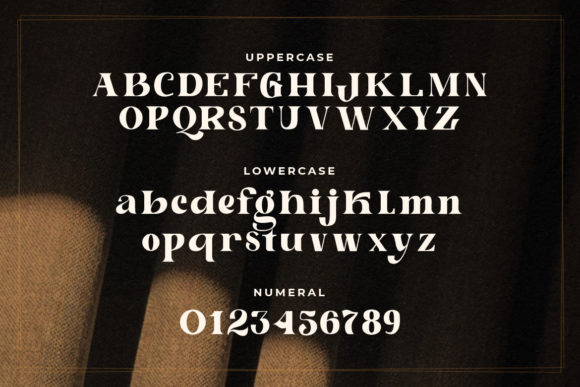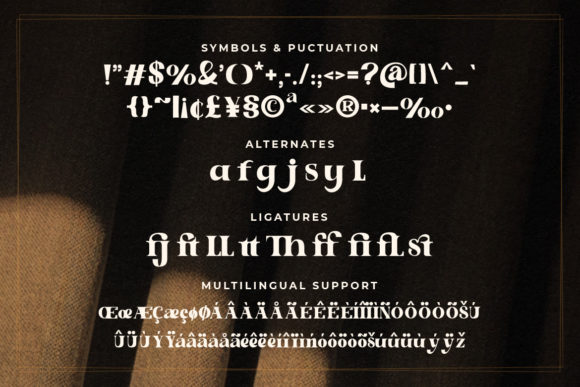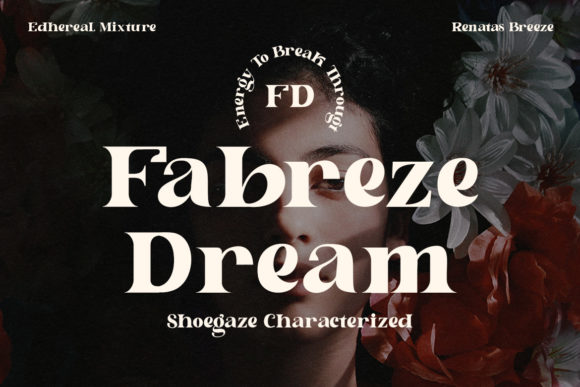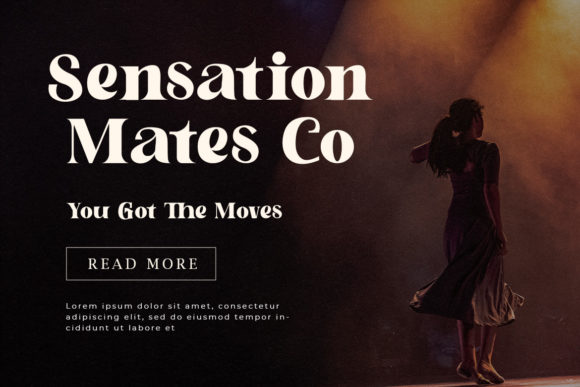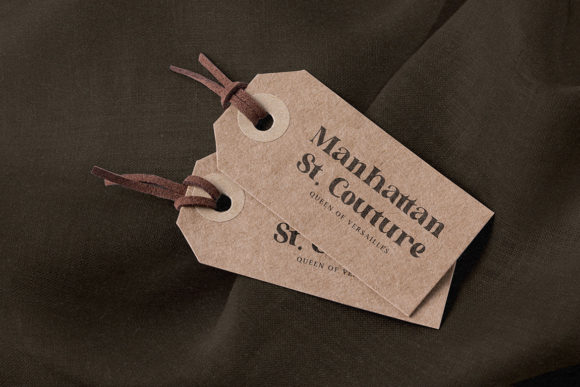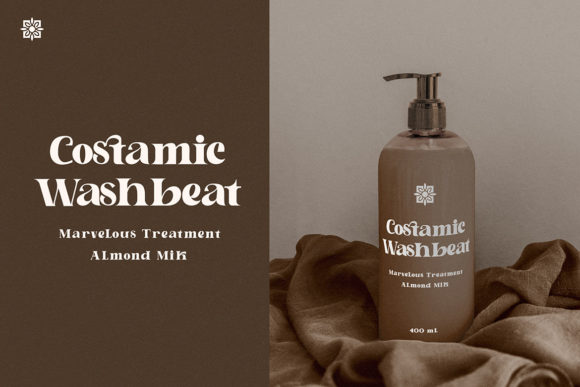
Introduction to Hadest Font
Hadest is a vintage, bold and stylish serif font.
Add it confidently to your favorite creations, and let yourself be amazed by the generated outcome This font is PUA encoded, which means you can access all of the amazing glyphs and ligatures with ease.
Key Features of Hadest Font